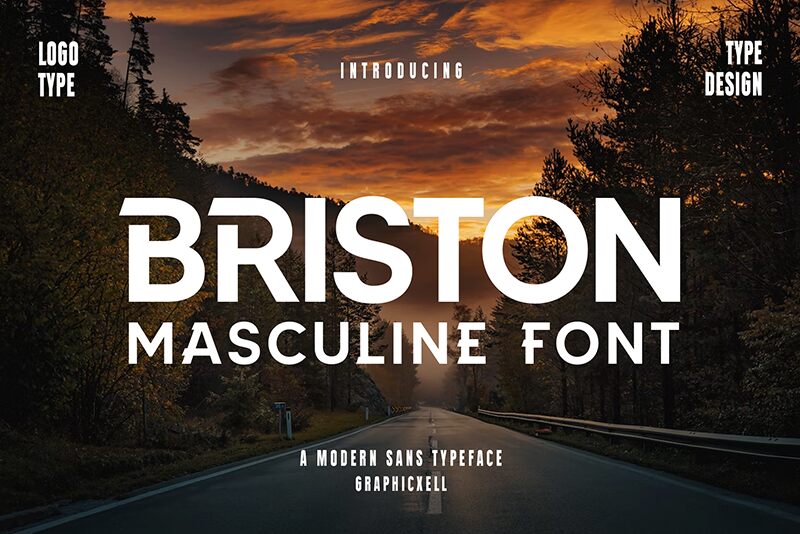
Briston, designed by Graphicxell, is a sans serif font that captivates with its bold and assertive presence. Its clean lines and modern aesthetic make it a versatile choice for various design applications. The robust structure of Briston exudes confidence, making it perfect for attention-grabbing headlines, impactful posters, and sleek branding projects. Its striking characters ensure legibility and attention to detail, while the contemporary style fuels a sense of innovation and progress.
In graphic design or advertising, Briston’s compelling look stands out even from a distance. Whether it's used in digital media or print design, this font guarantees to make your message resonate with strength and clarity. Briston isn't just a typeface; it's an embodiment of modern sophistication and powerful visual communication.